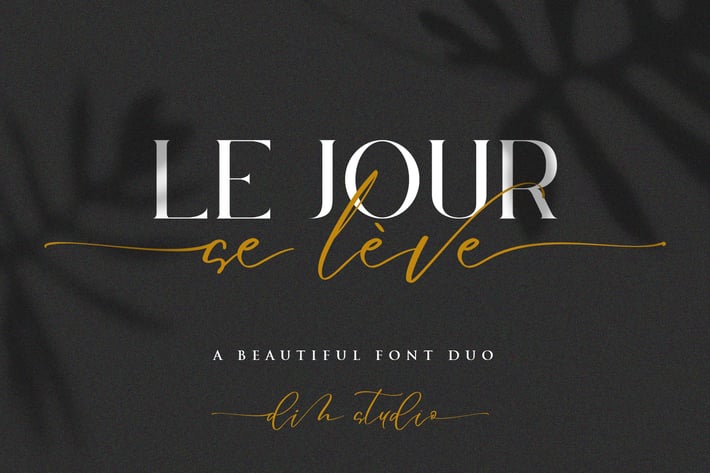
Le Jour - Font Duo
Le Jour is a beautiful calligraphy combine with modern serif. Made with naturally handwritten. The combination of the font will make your design more beautiful and luxury. This font is suitable for any design like wedding, branding, quotes, and etc.
- Le Jour Serif Font
- Le Jour Script Font
- Accents (Multilingual characters)
- 58 Alternates
- 52 Stylisticsets
- Numerals and Punctuations (OpenType Standard)